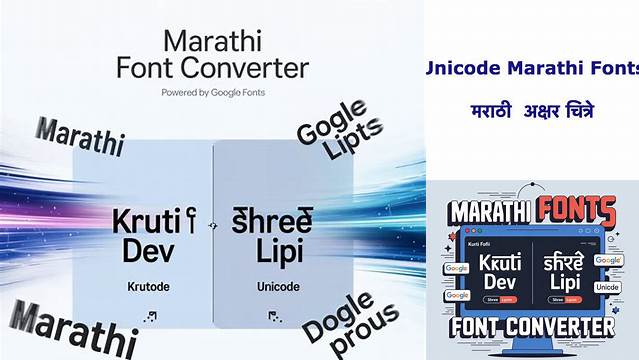
Marathi Unicode Fonts: Google Fonts Guide
Hey guys! Ever found yourself struggling to find the perfect Marathi font for your project? Well, you're not alone! Marathi typography can be tricky, especially when you're dealing with Unicode and trying to make your text look amazing across different platforms. That's why we're diving deep into the world of Marathi Unicode Google Fonts in this guide. We'll cover everything from the basics of Unicode to the best fonts Google has to offer, so you can create stunning Marathi content without the headache. Let's get started!
What is Marathi Unicode?
First things first, let's talk about Marathi Unicode. You might be wondering, “What even is Unicode?” Simply put, Unicode is a universal character encoding standard. Think of it as a giant dictionary that assigns a unique number to every character in every language. This means that whether you're typing in Marathi, English, or even emoji, Unicode ensures that your text will display correctly on any device or operating system. Before Unicode, things were a chaotic mess of different encoding systems, leading to all sorts of display issues. Imagine writing a beautiful Marathi poem only to have it show up as gibberish on someone else's computer! Unicode solves this problem by providing a consistent way to represent text.
Why is Unicode Important for Marathi?
Now, why is this especially important for Marathi? Well, Marathi, like many Indian languages, has a complex script with a wide range of characters and ligatures (combinations of characters). Older encoding systems often struggled to represent these characters accurately, leading to compatibility problems and frustration for users. Unicode ensures that all Marathi characters, including those tricky ligatures, are displayed correctly, making it much easier to create and share Marathi content online. This is a huge win for preserving and promoting the Marathi language in the digital age.
The Benefits of Using Unicode
Using Unicode fonts for Marathi offers a ton of benefits. For starters, you get consistent display across different platforms, which means your website, documents, and social media posts will look the same no matter where they're viewed. This is crucial for maintaining a professional and polished look. Unicode also makes it easier to search and index Marathi text, which is vital for SEO and discoverability. Plus, Unicode supports a vast array of characters, so you can express yourself fully without worrying about missing characters or encoding errors. It’s really the gold standard for digital text representation.
Why Use Google Fonts for Marathi?
Wide Variety of Marathi Fonts
Google Fonts boasts a surprisingly wide variety of Marathi fonts, catering to different styles and needs. Whether you're looking for a traditional, elegant typeface for a formal document or a modern, playful font for a website, you'll likely find something that fits the bill. We’ll be exploring some specific recommendations later in this guide. The sheer variety means you can really experiment and find the perfect font to express your brand or personal style.
Easy to Implement
Another major advantage of Google Fonts is how easy they are to implement. You can simply embed them in your website by adding a few lines of code, or download them and use them in your desktop applications. Google provides clear instructions and tools to make the process seamless, even if you're not a coding whiz. This ease of use saves you time and frustration, allowing you to focus on the creative aspects of your project.
Top Marathi Unicode Fonts on Google Fonts
Alright, let's get to the fun part! We're going to explore some of the top Marathi Unicode fonts available on Google Fonts. These fonts have been selected for their readability, versatility, and aesthetic appeal. Whether you're designing a website, creating marketing materials, or writing a book, these fonts will help you make a statement.
1. KFO-G fonts - Open Sans Marathi
Open Sans Marathi is a fantastic choice for body text. It’s clean, modern, and highly readable, making it perfect for long passages of writing. Its neutral design also means it works well in a variety of contexts, from websites to print materials. Open Sans is a hugely popular font family, and the Marathi variant maintains the same high standards of legibility and design. If you need a reliable and versatile font for your project, Open Sans Marathi is a solid option.
Readability and Versatility of Open Sans Marathi
One of the key strengths of Open Sans Marathi is its exceptional readability. The letterforms are clear and well-defined, making it easy to read even at small sizes. This is crucial for body text, where readability is paramount. But Open Sans Marathi is also surprisingly versatile. Its clean design means it can be used in a wide range of applications, from corporate websites to personal blogs. It's a true workhorse font that will serve you well in many projects.
Best Uses for Open Sans Marathi
So, where does Open Sans Marathi really shine? It's an excellent choice for body text in websites, books, and articles. Its readability makes it perfect for long-form content. It also works well in print materials, such as brochures and reports. If you need a font that's both professional and approachable, Open Sans Marathi is a great pick. Its versatility also means it can be used for headings and subheadings, although you might want to pair it with a more distinctive font for those elements.
2. Archana Marathi
Archana Marathi is another excellent choice, known for its clear and contemporary design. It's a sans-serif font that’s particularly well-suited for digital applications. Archana Marathi strikes a nice balance between readability and visual appeal, making it a popular option for websites and user interfaces. If you're looking for a modern Marathi font that's easy on the eyes, Archana Marathi is definitely worth considering.
Modern Design and Readability of Archana Marathi
Archana Marathi boasts a modern, clean design that feels fresh and contemporary. Its letterforms are well-proportioned and carefully crafted, ensuring excellent readability. The font maintains clarity even at smaller sizes, making it suitable for both headings and body text. This balance of modern aesthetics and readability is what makes Archana Marathi so appealing for digital projects.
Ideal Applications for Archana Marathi
Where does Archana Marathi really excel? It's an ideal choice for websites, mobile apps, and user interfaces. Its clean design and excellent readability make it perfect for on-screen text. It also works well for headings and subheadings, giving your designs a modern and polished look. If you're looking for a font that will help your digital content shine, Archana Marathi is a fantastic option.
3. KFO-G fonts - Poppins Marathi
Poppins Marathi is a geometric sans-serif font that exudes a sense of modernity and sophistication. Its clean lines and circular forms give it a distinct personality, making it a popular choice for branding and display purposes. Poppins is available in a wide range of weights, giving you plenty of flexibility to create visual hierarchy in your designs. If you want a font that's both stylish and functional, Poppins Marathi is a great contender.
Geometric Style and Versatility of Poppins Marathi
What sets Poppins Marathi apart is its geometric style. The font's clean lines and circular shapes give it a modern and sophisticated feel. This makes it a great choice for branding materials, logos, and websites that want to convey a sense of innovation and creativity. Poppins Marathi is also remarkably versatile, working well in both headings and shorter blocks of text. Its wide range of weights allows you to create visual interest and hierarchy in your designs.
Best Uses for Poppins Marathi
Poppins Marathi is particularly well-suited for branding, logos, and display typography. Its distinctive geometric style makes it a great choice for creating memorable visuals. It also works well for website headings and subheadings, adding a touch of modern flair to your online presence. While Poppins Marathi can be used for body text, it's often best paired with a more traditional font for longer passages of writing. If you're looking for a font that will make your brand stand out, Poppins Marathi is an excellent option.
4. KFO-G fonts - Roboto Marathi
Roboto Marathi is a classic sans-serif font that’s known for its clean lines and excellent readability. It’s a highly versatile font that works well in a wide range of applications, from websites to print materials. Roboto is a system font on Android devices, so it’s a familiar and trusted choice for many users. If you’re looking for a reliable and highly legible Marathi font, Roboto Marathi is a solid choice.
Clean Design and Legibility of Roboto Marathi
Roboto Marathi stands out for its clean, uncluttered design and exceptional legibility. The letterforms are carefully crafted to ensure clarity, even at small sizes. This makes it a fantastic option for body text, where readability is paramount. Roboto's clean design also makes it highly versatile, fitting seamlessly into a variety of design contexts. It's a font that gets the job done without drawing undue attention to itself.
Suitable Applications for Roboto Marathi
Roboto Marathi is a workhorse font that excels in a wide range of applications. It's an excellent choice for body text in websites, documents, and reports. Its familiarity and legibility also make it a good option for user interfaces and mobile apps. While Roboto Marathi can be used for headings, it’s often paired with a more distinctive font to create visual contrast. If you need a reliable and readable font that you can use in almost any context, Roboto Marathi is a solid bet.
5. KFO-G fonts - Montserrat Marathi
Montserrat Marathi is a geometric sans-serif font that exudes a sense of urban sophistication. Inspired by the signage of the Montserrat neighborhood in Buenos Aires, this font has a modern, stylish feel. Montserrat is available in a variety of weights, making it a versatile choice for both headings and body text. If you want a font that’s both elegant and functional, Montserrat Marathi is definitely worth checking out.
Urban Aesthetic and Functionality of Montserrat Marathi
Montserrat Marathi's urban aesthetic gives it a distinctive personality. The font's geometric shapes and clean lines evoke a sense of modernity and sophistication. This makes it a great choice for projects that want to convey a sense of style and innovation. But Montserrat Marathi isn't just about looks; it's also highly functional. Its range of weights makes it suitable for both headings and body text, giving you plenty of flexibility in your designs.
Best Use Cases for Montserrat Marathi
Montserrat Marathi shines in a variety of design applications. It's an excellent choice for branding materials, logos, and websites that want to project a modern and stylish image. It also works well for headings and subheadings, adding a touch of elegance to your designs. While Montserrat Marathi can be used for body text, it's often paired with a more traditional font for longer passages of writing. If you're looking for a font that will give your project a sophisticated edge, Montserrat Marathi is a fantastic option.
How to Use Marathi Google Fonts on Your Website
Okay, so you've picked your perfect Marathi Google Font. Now what? Let's talk about how to use Marathi Google Fonts on your website. It's actually a pretty straightforward process, and Google makes it super easy to implement their fonts. There are two main methods: linking to the Google Fonts CDN (Content Delivery Network) or downloading the fonts and hosting them yourself. We'll cover both methods, so you can choose the one that best suits your needs.
Linking to Google Fonts CDN
The easiest way to use Google Fonts is by linking to the Google Fonts CDN. This means that your website will load the fonts directly from Google's servers. This method is quick, convenient, and ensures that your visitors will always have access to the latest version of the font. Here's how to do it:
Step-by-Step Guide to Linking Google Fonts
- Choose your font: Head over to the Google Fonts website (https://fonts.google.com/) and browse the Marathi fonts until you find one you like.
- Select the styles: Click on the font you've chosen, and you'll see a list of styles (e.g., Regular, Bold, Italic). Select the styles you want to use by clicking the "+ Select style" button next to each one.
- Embed code: A panel will appear at the bottom of the screen. Click on "View selected families." You'll see two code snippets: one for the
<link>tag and one for the CSS rule. - Add the
<link>tag: Copy the<link>tag and paste it into the<head>section of your HTML file. This tag tells the browser to load the font from Google's servers. - Apply the CSS rule: Copy the CSS rule (e.g.,
font-family: 'Poppins', sans-serif;) and paste it into your CSS file or<style>tag. This tells the browser which elements should use the font.
And that's it! Your website should now be using your chosen Marathi Google Font. It’s a really simple process that can make a huge difference to your website's typography.
Downloading and Self-Hosting Google Fonts
While linking to the Google Fonts CDN is the easiest method, some people prefer to download and self-host Google Fonts. This means that you'll download the font files and store them on your own server. This gives you more control over the fonts and can potentially improve your website's loading speed. However, it also means you're responsible for serving the font files, so it requires a bit more technical know-how.
Steps to Download and Host Fonts Yourself
- Download the font: Go to the Google Fonts website and select the font you want to use. Click the "Download family" button in the top right corner.
- Extract the files: You'll download a ZIP file containing the font files (usually in .ttf or .woff2 format). Extract the files to a folder on your computer.
- Upload to your server: Create a folder on your server (e.g.,
fonts) and upload the font files to that folder. - Create a CSS rule: In your CSS file, use the
@font-facerule to define the font. This tells the browser where to find the font files on your server. - Apply the font: Use the
font-familyproperty to apply the font to the elements you want to style.
Self-hosting Google Fonts gives you more control, but it also requires more effort. If you're comfortable with CSS and server management, it can be a good option. Otherwise, linking to the Google Fonts CDN is the simpler and more convenient choice.
Tips for Choosing the Right Marathi Font
Choosing the right font can be a game-changer for your project. But with so many options available, how do you make the right choice? Here are some tips for choosing the right Marathi font that will help you create stunning and effective typography.
Consider Your Brand and Audience
First and foremost, consider your brand and audience. What kind of message do you want to convey? What are your brand's values? Who are you trying to reach? Your font choice should reflect your brand's personality and appeal to your target audience. For example, if you're creating a website for a traditional Marathi cultural organization, you might choose a more classic and elegant font. If you're designing a mobile app for a young audience, you might opt for a modern and playful font. Think about the overall impression you want to make and choose a font that aligns with that vision.
Matching Font Style with Your Message
The font you choose should also match the message you're trying to convey. Different fonts evoke different emotions and associations. A bold, strong font might be perfect for headlines and calls to action, while a more delicate font might be better suited for body text. Think about the tone and style of your content and choose a font that complements it. If you're writing a formal document, a serif font like Devanagari might be a good choice. If you're creating a website with a modern, minimalist design, a sans-serif font like Archana Marathi might be a better fit.
Understanding Font Psychology
Font psychology is the study of how different fonts affect people's emotions and perceptions. Certain fonts can evoke feelings of trust, stability, and tradition, while others can convey excitement, innovation, and creativity. Understanding font psychology can help you make more informed decisions about your typography. For example, serif fonts are often associated with tradition and authority, while sans-serif fonts are seen as more modern and approachable. Geometric fonts can convey a sense of order and efficiency, while script fonts can add a touch of elegance and personality. By considering the psychological impact of different fonts, you can choose one that effectively communicates your message.
Ensure Readability and Accessibility
Readability and accessibility are crucial factors to consider when choosing a font. Ensure readability and accessibility by selecting a font that's easy to read, especially for longer passages of text. Avoid overly decorative or complex fonts that can strain the eyes. Pay attention to the font's x-height (the height of the lowercase letters) and the spacing between letters. A font with a generous x-height and ample spacing will be easier to read. Accessibility is also important. Choose a font that's legible for people with visual impairments. Consider using a font with a clear and distinct letterform, and make sure there's enough contrast between the text and the background.
Font Size and Spacing Considerations
Font size and spacing play a significant role in readability. Choose a font size that's appropriate for your content and the device on which it will be viewed. Body text should be large enough to read comfortably, while headings can be larger to create visual hierarchy. Pay attention to line height (the space between lines of text) and letter spacing. Adequate line height improves readability by preventing lines of text from feeling cramped. Proper letter spacing ensures that letters don't collide or appear too far apart. Experiment with different font sizes and spacing settings to find what works best for your chosen font.
Contrast and Legibility for All Users
Contrast is essential for legibility, especially for users with visual impairments. Make sure there's enough contrast between the text and the background. Light text on a dark background or dark text on a light background generally provides the best contrast. Avoid using colors that are too similar, as this can make the text difficult to read. Consider using a color contrast checker to ensure that your text meets accessibility guidelines. Legibility is also affected by the font's letterforms. Choose a font with clear and distinct letterforms that are easy to distinguish from each other. Avoid fonts with overly stylized or decorative letterforms, as these can be challenging to read.
Test Across Different Devices and Browsers
Finally, test across different devices and browsers. Your font might look great on your computer, but how does it appear on a mobile phone or a tablet? Does it render correctly in different browsers like Chrome, Firefox, and Safari? It's essential to test your font across a variety of platforms to ensure consistency and readability. Use browser developer tools to inspect the font and make sure it's loading correctly. Check the font's rendering at different sizes and on different screen resolutions. This will help you identify any potential issues and make adjustments as needed.
Ensuring Cross-Platform Compatibility
Cross-platform compatibility is crucial for a consistent user experience. Make sure your chosen Marathi Google Font displays correctly on different operating systems, such as Windows, macOS, Android, and iOS. Test your website or application on different devices and browsers to identify any rendering issues. If you encounter problems, you may need to adjust your CSS or choose a different font. Using Google Fonts' CDN can help ensure cross-platform compatibility, as Google's servers are optimized to deliver fonts efficiently to a wide range of devices and browsers.
Using Browser Developer Tools for Testing
Browser developer tools are invaluable for testing fonts and typography. These tools allow you to inspect the CSS of your website and see how fonts are being rendered. You can use developer tools to identify font loading issues, adjust font sizes and spacing, and experiment with different font styles. Most modern browsers have built-in developer tools that you can access by right-clicking on a webpage and selecting "Inspect" or "Inspect Element." Learning how to use browser developer tools can greatly improve your typography workflow and help you ensure that your fonts look their best.
Troubleshooting Common Issues with Marathi Fonts
Even with the best planning, you might encounter some issues when working with Marathi fonts. Let's walk through troubleshooting common issues with Marathi fonts, so you can tackle any challenges that come your way. We'll cover some typical problems and how to fix them.
Font Not Displaying Correctly
One of the most frustrating issues is when font not displaying correctly. You might see boxes, question marks, or other strange characters instead of the Marathi text you expect. This usually indicates an encoding problem or a missing font. Here's how to troubleshoot this issue:
Checking for Encoding Issues
Encoding issues are a common cause of font display problems. Make sure your website or document is using the correct character encoding, which is typically UTF-8 for Unicode fonts. You can specify the character encoding in your HTML file by adding the following <meta> tag in the <head> section:
<meta charset="UTF-8">
If you're working with a text editor or word processor, ensure that the document is saved with UTF-8 encoding. Incorrect encoding can lead to character corruption and display problems. Always double-check your encoding settings to ensure that your Marathi text is displayed correctly.
Verifying Font Installation and Linking
If the encoding is correct, the next step is to verify that the font is installed and linked properly. If you're using Google Fonts, make sure you've correctly added the <link> tag to your HTML file and that the CSS rule is applied correctly. If you're self-hosting the font, ensure that the font files are uploaded to your server and that the @font-face rule is set up correctly in your CSS. Double-check the file paths and URLs to make sure they're accurate. If the font is not installed on the user's system and the linking is incorrect, the browser won't be able to display the font, resulting in display issues.
Font Rendering Problems in Different Browsers
Sometimes, a font rendering problems in different browsers. What looks great in Chrome might not look so great in Firefox or Safari. This can be due to differences in how browsers handle font rendering or subtle bugs in the font itself. Here's how to address this issue:
Cross-Browser Testing and Solutions
Cross-browser testing is crucial for ensuring consistent typography. Use browser developer tools to inspect the font rendering in different browsers. Look for differences in letter spacing, line height, and overall appearance. If you find discrepancies, try adjusting your CSS to compensate. You might need to use browser-specific CSS hacks or conditional stylesheets to target specific browsers. In some cases, font rendering issues can be caused by browser extensions or add-ons. Try disabling extensions to see if that resolves the problem. If the issue persists, consider using a different font or reporting the bug to the font's developers.
Using CSS Vendor Prefixes
CSS vendor prefixes are a way to apply experimental or non-standard CSS properties to specific browsers. While they're becoming less common, they can still be useful for addressing font rendering issues in older browsers. For example, you might use the -webkit- prefix for Safari and Chrome or the -moz- prefix for Firefox. However, use vendor prefixes sparingly, as they can lead to compatibility problems in the future. It's often better to use standard CSS properties and techniques whenever possible.
Slow Font Loading Times
Slow font loading times can negatively impact your website's performance and user experience. If your fonts take too long to load, users might see a flash of unstyled text (FOUT) or a flash of invisible text (FOIT), which can be jarring. Here's how to optimize font loading times:
Optimizing Font File Sizes
Font file sizes can significantly impact loading times. Larger font files take longer to download, which can slow down your website. To optimize font file sizes, use font formats like WOFF2, which provide better compression than older formats like TTF or OTF. If you're self-hosting fonts, consider using a font subsetting tool to include only the characters you need. This can greatly reduce the file size. Google Fonts automatically serves optimized font files, so you don't need to worry about this if you're using their CDN.